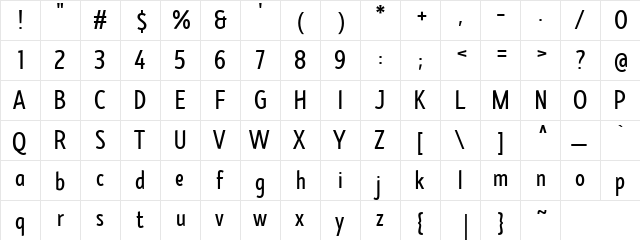
Burma Regular 2
| Designer | Satia Hayu Prabowo |
Design Context for Burma Typeface
Burma offers clean, dependable letterforms without strong stylistic allegiance, making it a practical choice for designers who need flexibility.